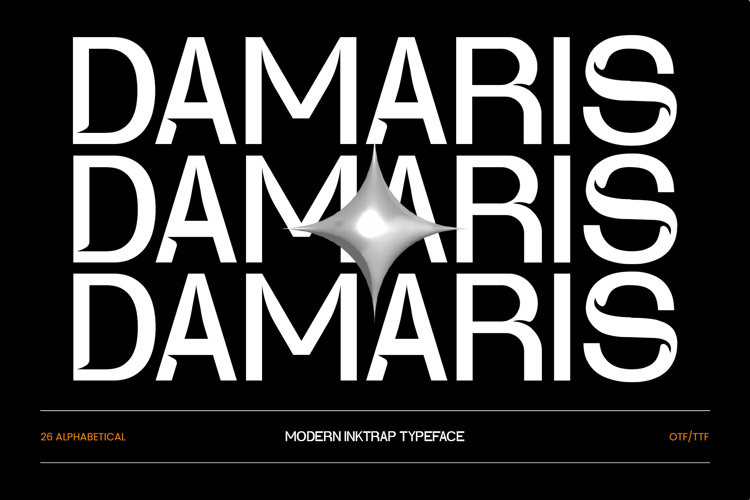
Damaris Font
DAMARIS – Modern Inktrap Typeface
Damaris is a Modern Inktrap Typeface that redefines contemporary typography. Designed with deep, intentional "inktraps" and sharp transitions, this font combines technical precision with a high-fashion, experimental aesthetic.
Modern Inktrap Detail: Features exaggerated corner cuts that create a unique visual rhythm and a "tech-chic" vibe.
Bold & Structural: A solid, high-contrast font that maintains excellent legibility while making a strong stylistic statement.
Creative Versatility: Perfect for cutting-edge branding, architectural magazines, streetwear labels, and modern web headers.